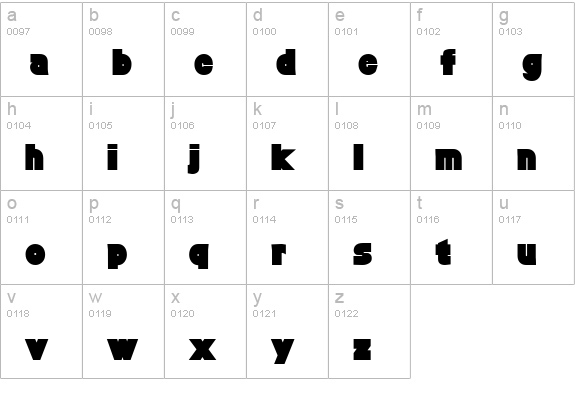
Baltar Extra Heavy is a heavy, high-impact variant in the Baltar typeface family \xE2\x80\x94 well suited to high-impact headlines, posters, and display advertising.
Baltar Extra Heavy font is a bold and impactful typeface designed to make a statement. With its thick, powerful strokes and commanding presence, this font is perfect for headlines, posters, and branding projects that require a strong and confident look. The extra heavy weight of this font exudes a sense of authority and dominance, making it ideal for projects that need to grab the viewer's attention. And the best part? Baltar Extra Heavy font is available for free download at FontsMarket.com! This means you can easily access this striking typeface and incorporate it into your designs without any cost. Don't miss out on this fantastic opportunity to enhance your projects with the bold and dynamic Baltar Extra Heavy font.